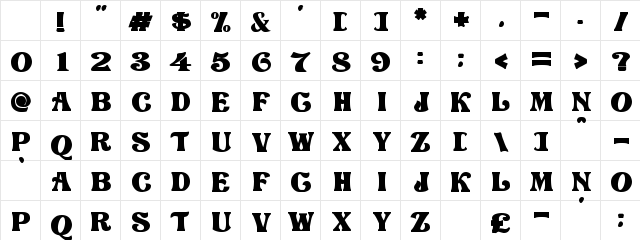
Love Craft Normal Free Font
Love Craft Normal
Designer: Joseph Dawson
Design Context for Love Craft
Love Craft is a composed and adaptable typeface that performs quietly and consistently across a wide range of design contexts.